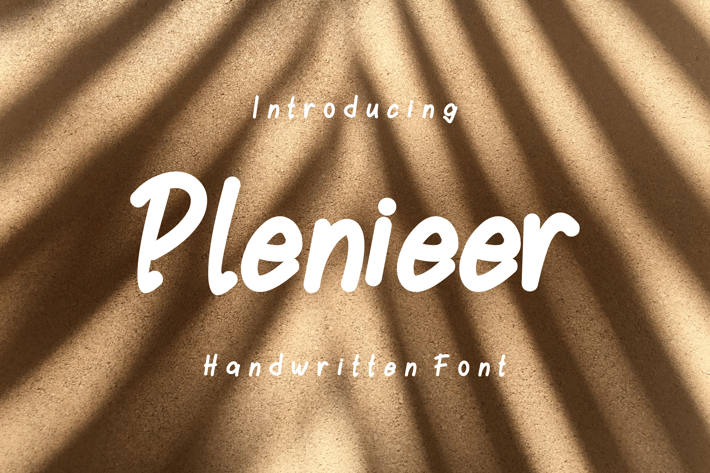
Plenieer Font.
Introducing our new product the name is Plenieer Font. Modern Decorative Fonts that feels beautiful classy, elegant, and modern. This font is perfectly suited for a wide variety of projects, such as signature, stationery, logo, wedding, typography quotes, magazine or book cover, website header, branding, packaging design, and more. Also, fashion-related branding or editorial design displays both masculine and feminine qualities.